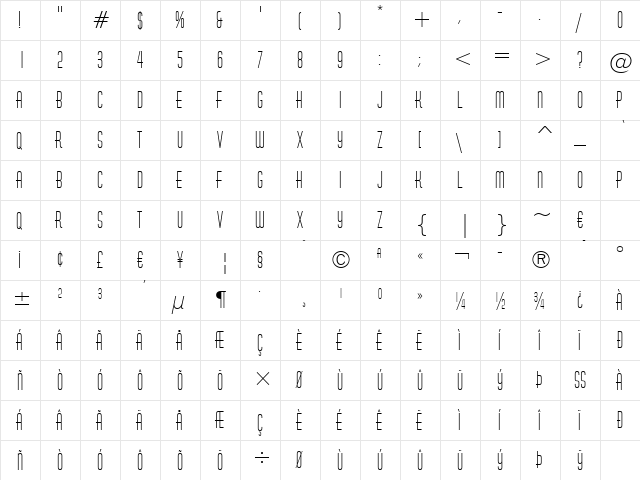
HuxleyVertical BT Regular Font Preview
HuxleyVertical BT Regular
HuxleyVertical BT Regular Font Details
Design Context for HuxleyVertical BT Typeface
HuxleyVertical BT takes a measured approach to typography — its balanced proportions and neutral character make it a reliable workhorse for both digital and print work.